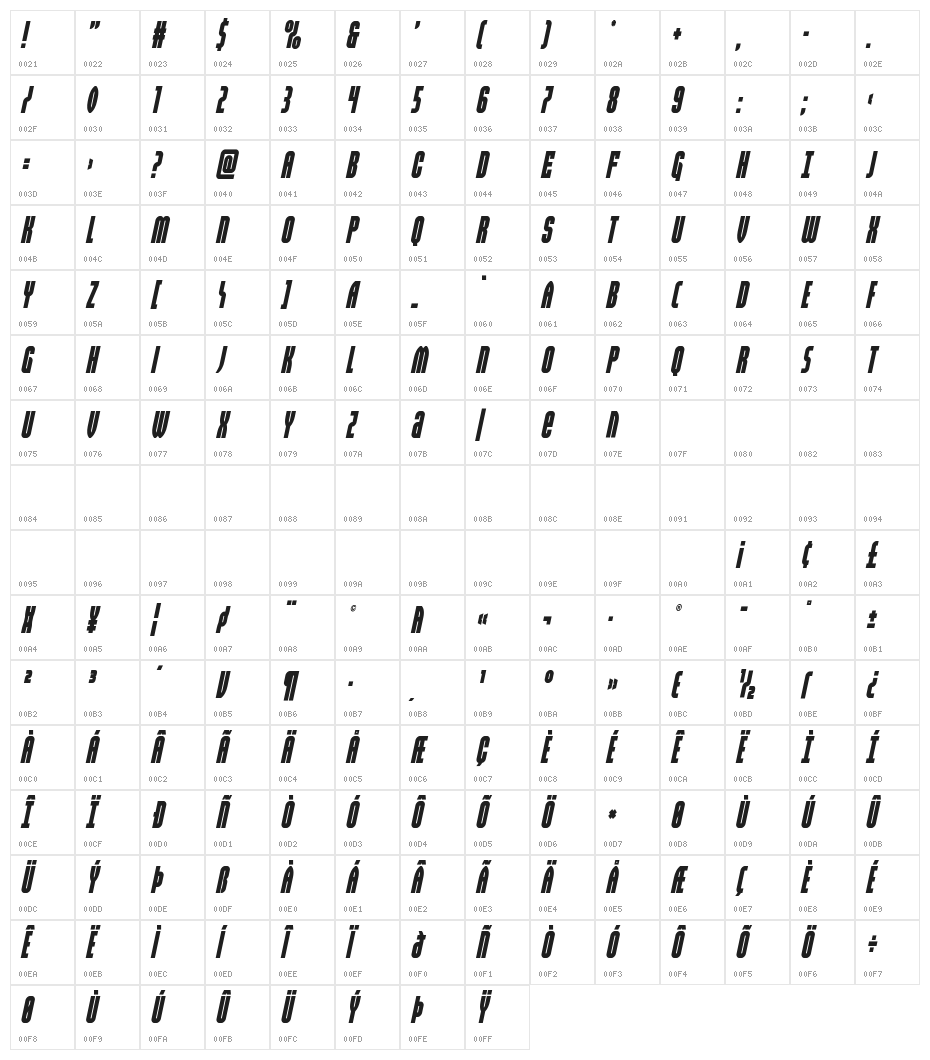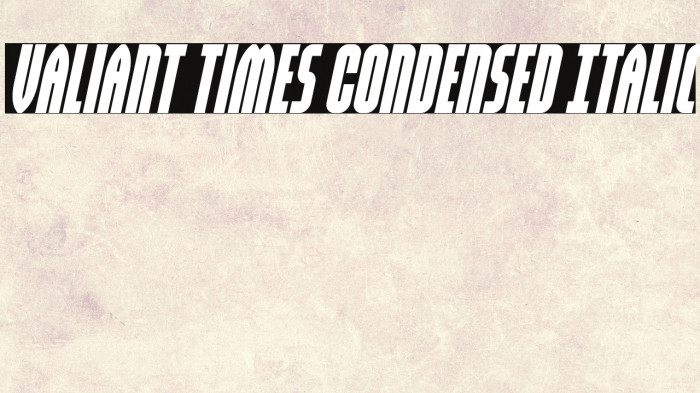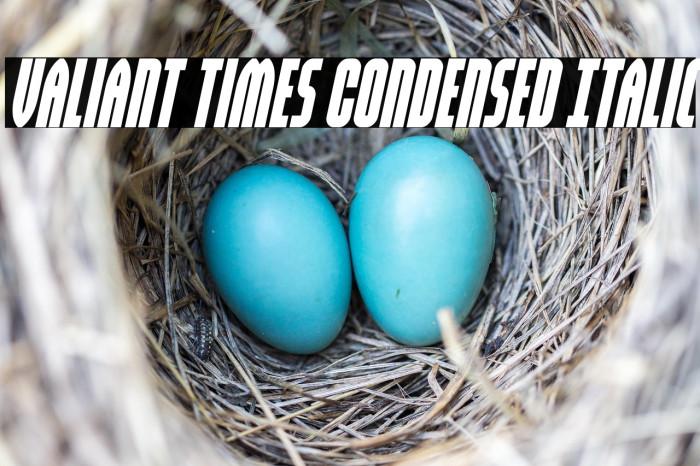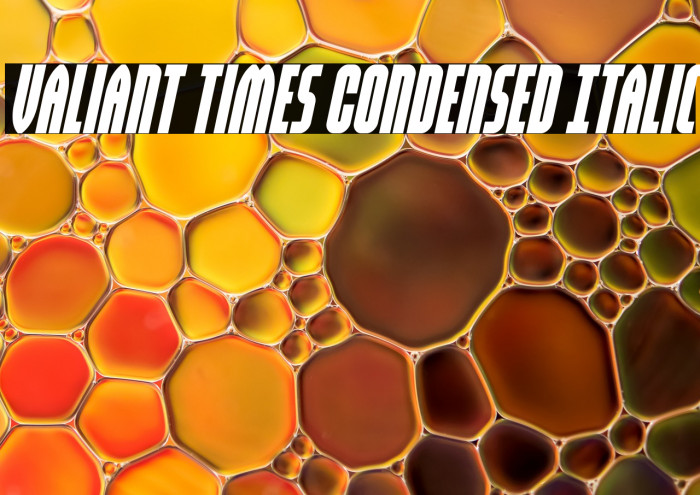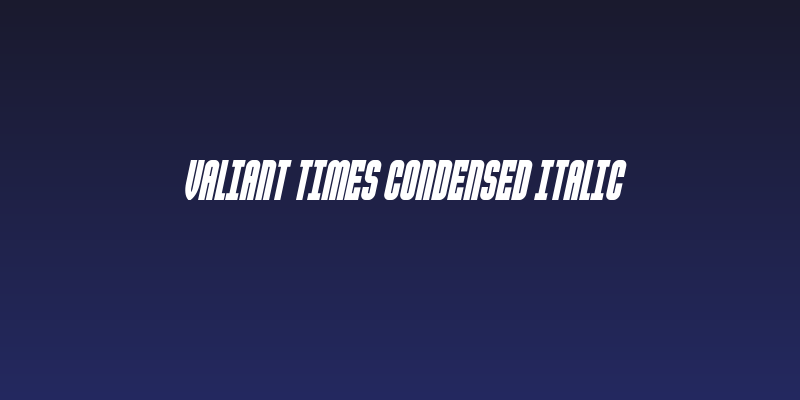
Valiant Times Condensed Italic Font
Valiant Times Condensed Italic Description
This font features a bold and condensed style with a distinct italic slant, giving it a dynamic and energetic appearance. The uppercase letters are tall and narrow, emphasizing verticality, while the lowercase letters maintain a consistent height that complements the uppercase. The numerals are similarly styled, ensuring uniformity across all characters. The special characters are designed to match the bold and italicized theme, making them stand out effectively. This font's condensed nature allows for efficient use of space, making it ideal for impactful headlines and titles.
| Proposed Projects | Ideal for sports branding, dynamic posters, magazine headlines, and advertising campaigns. |